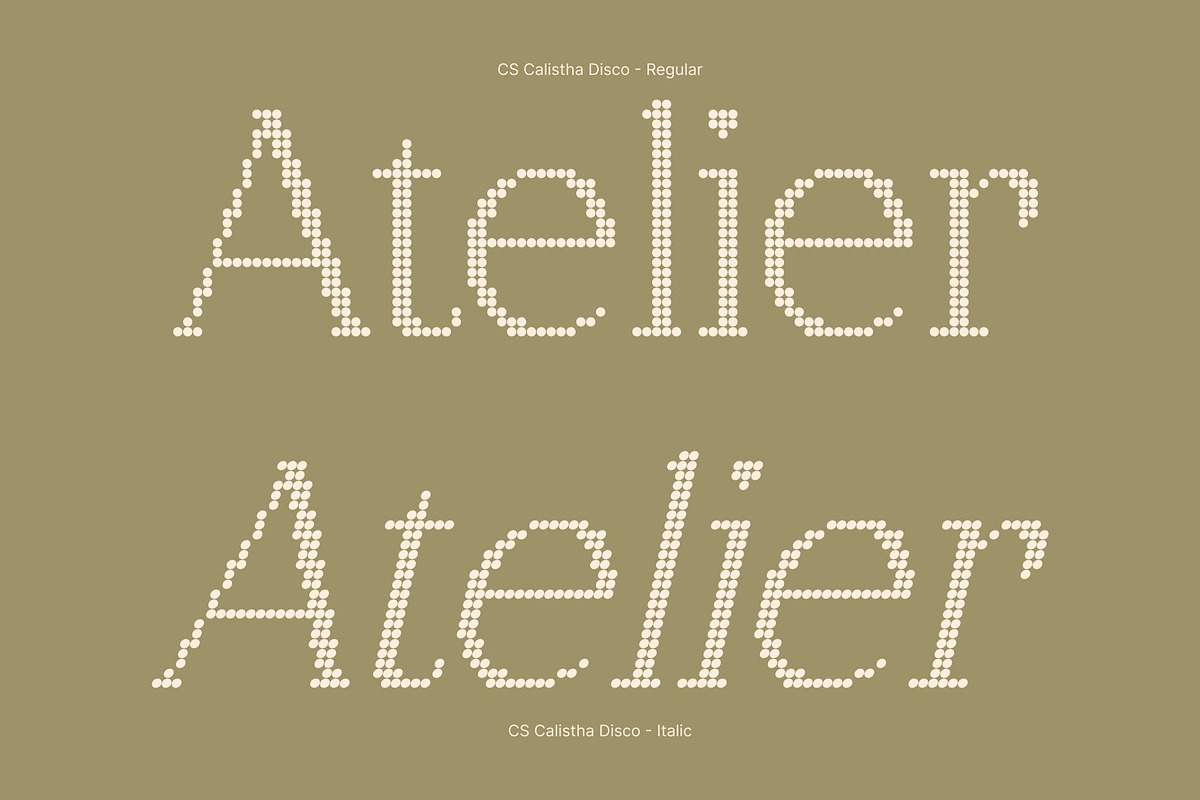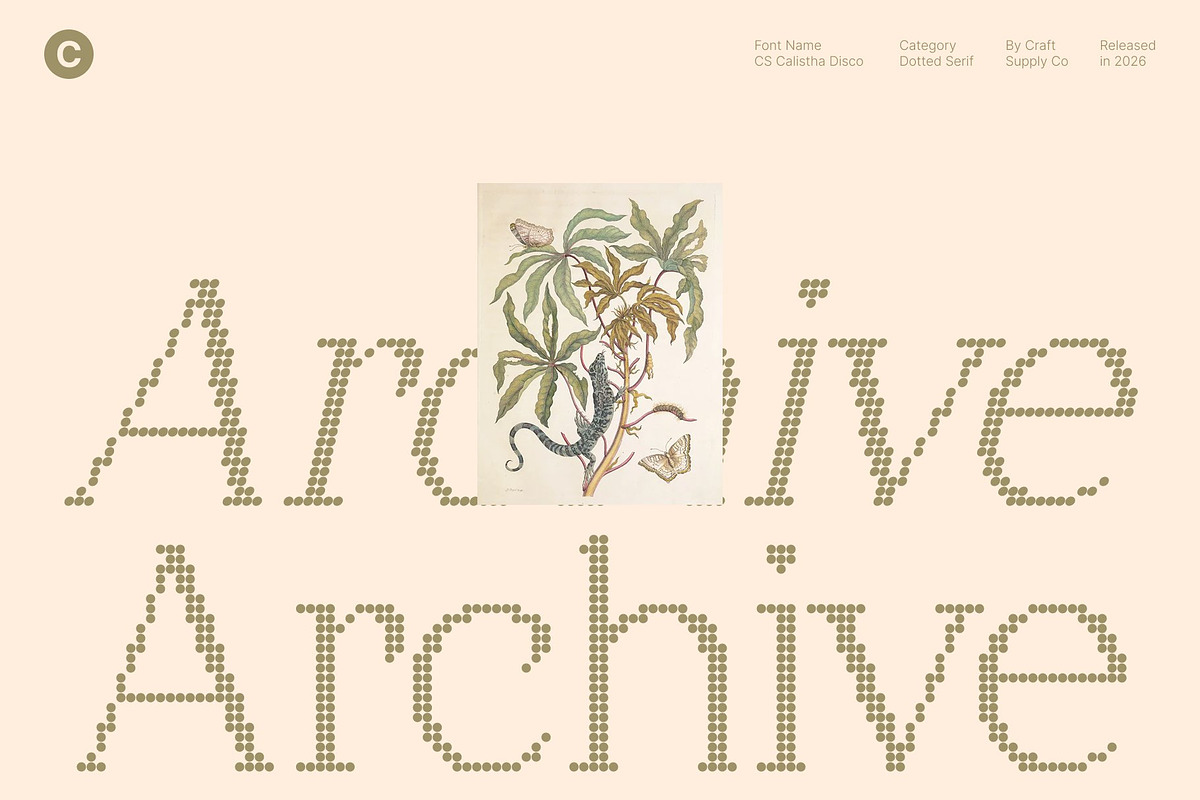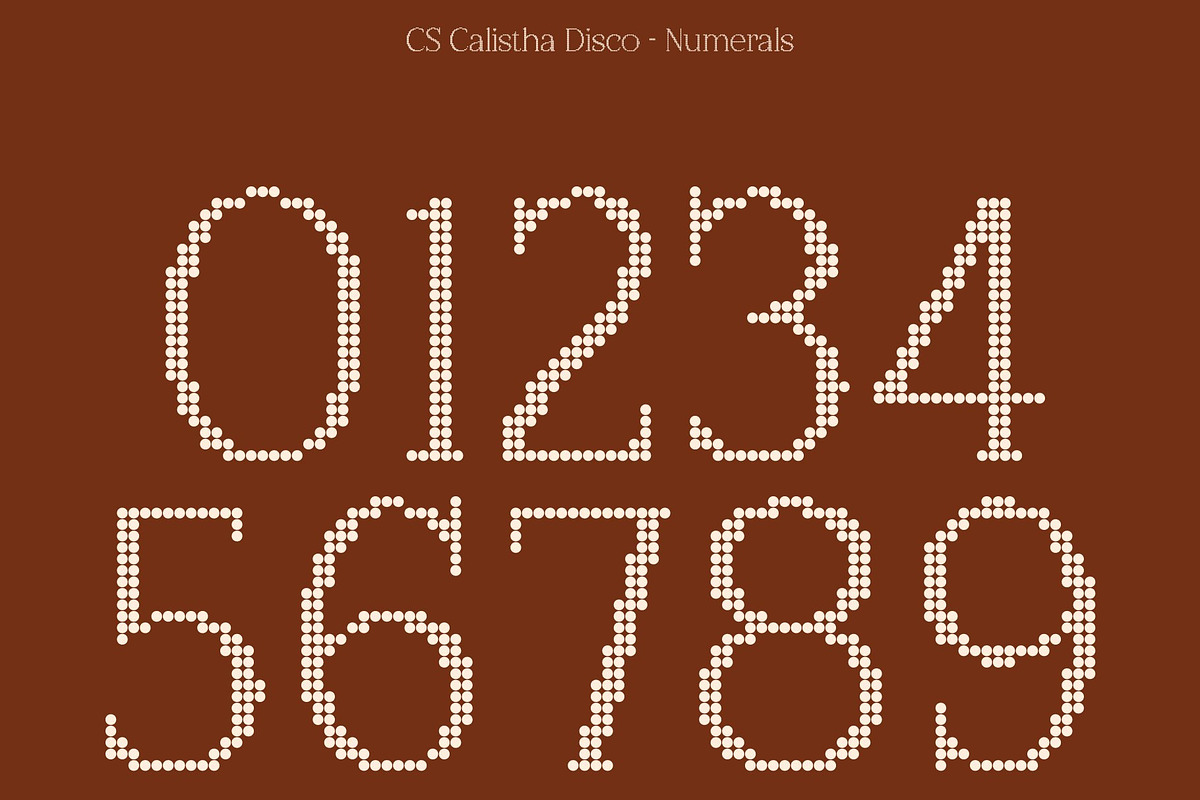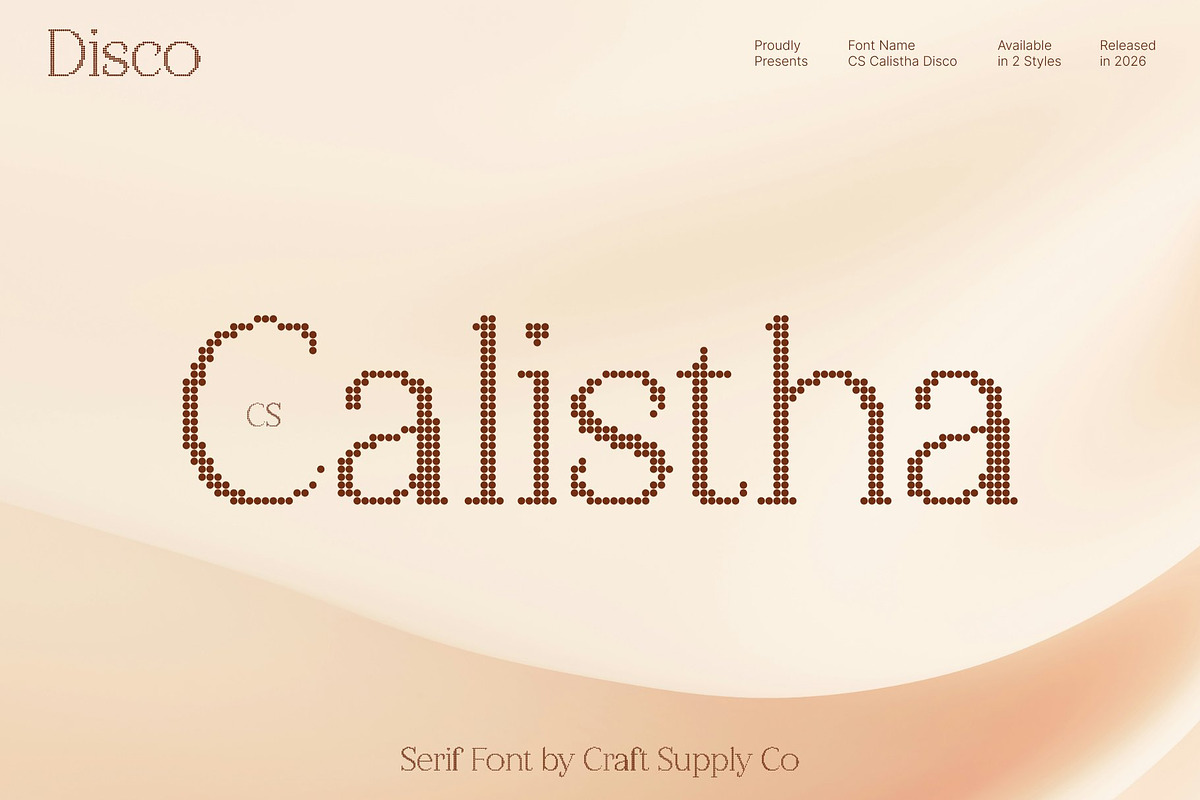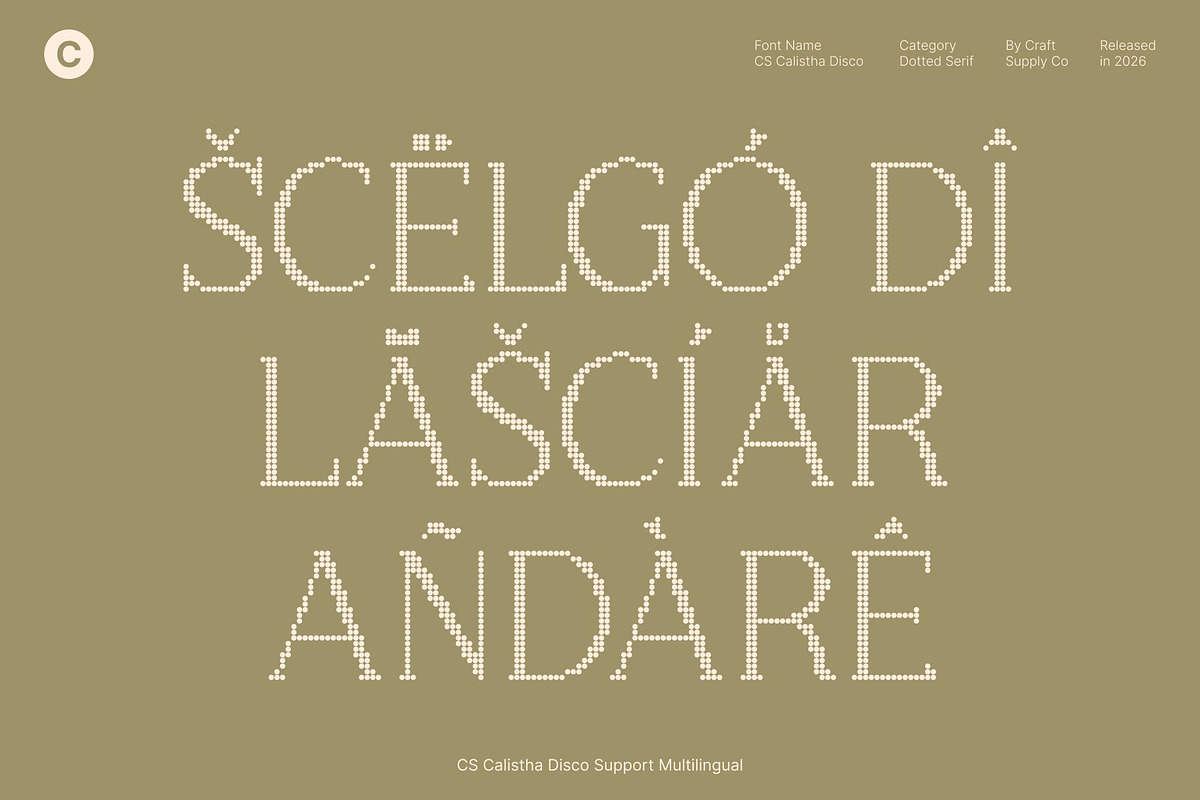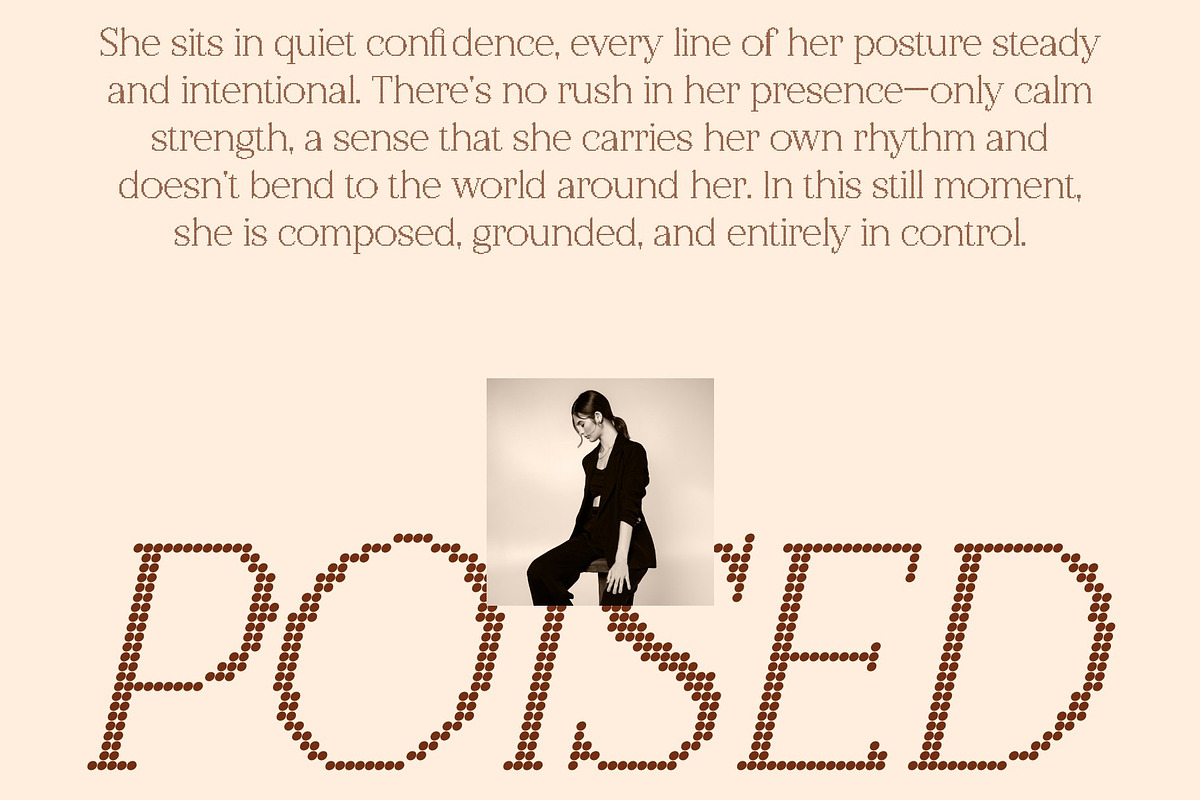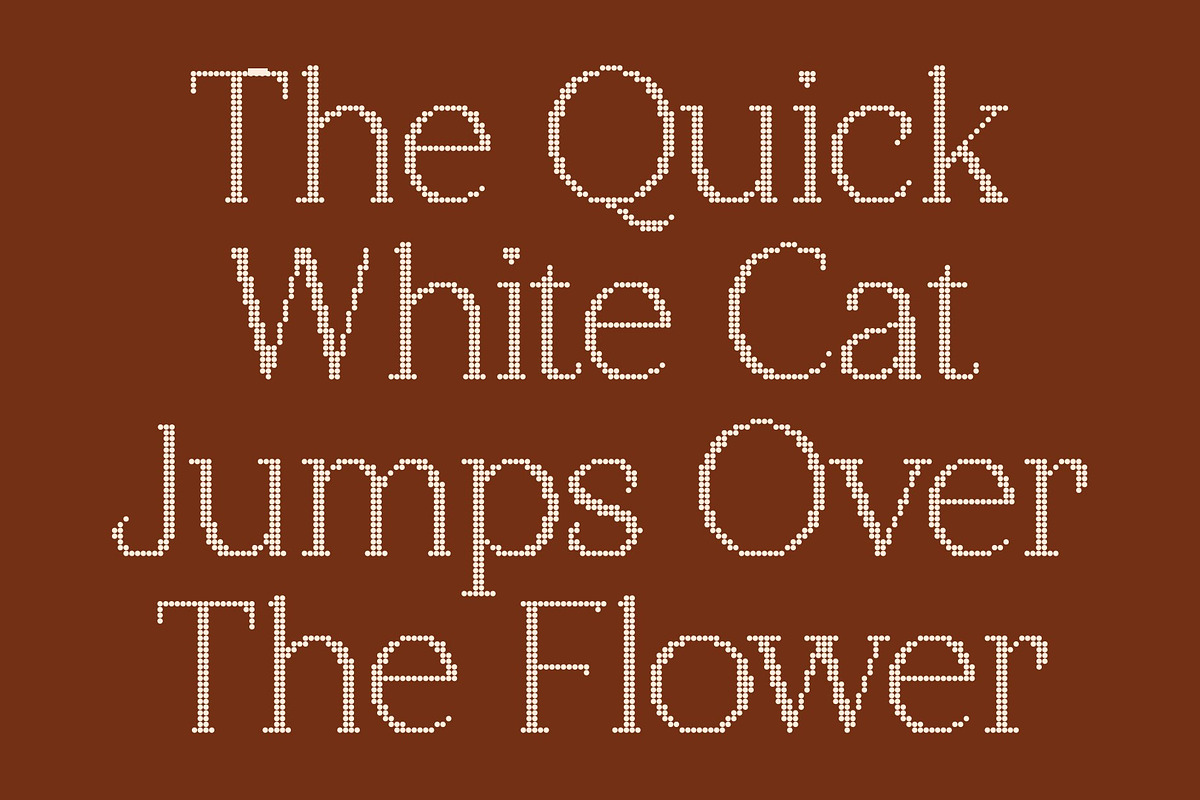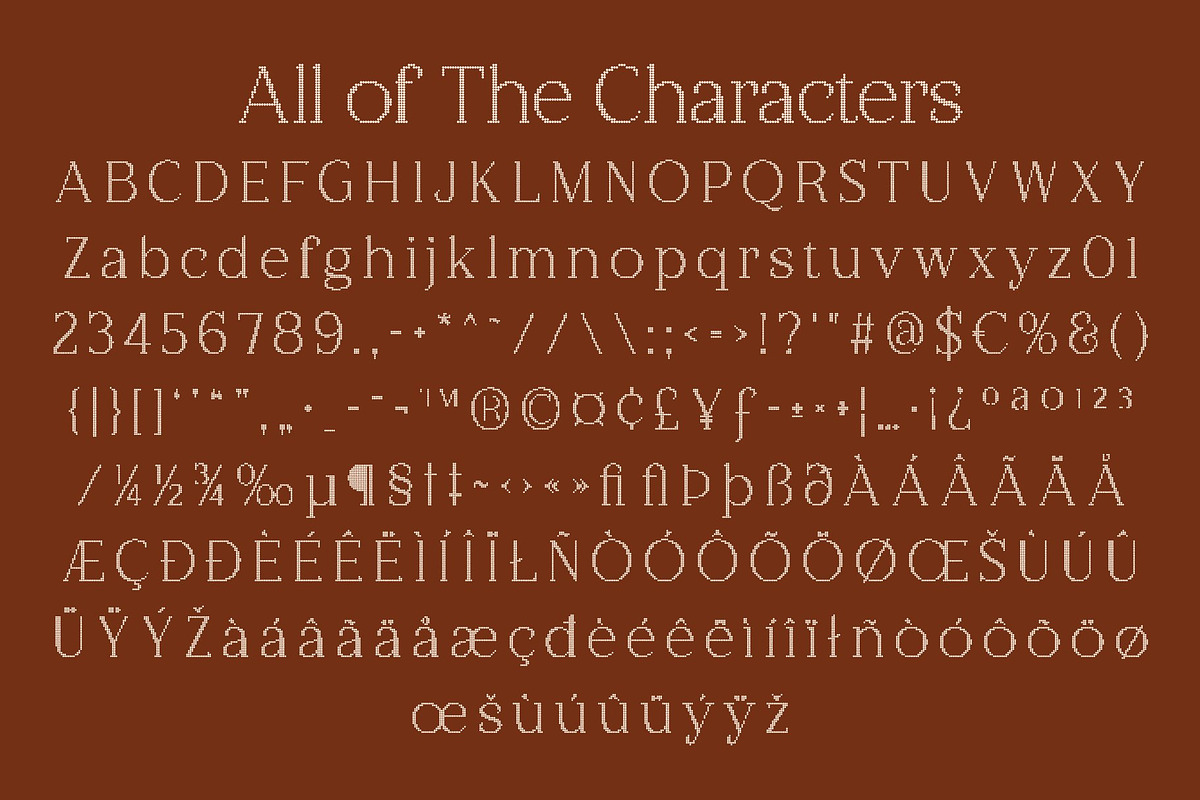
CS Calistha Disco
CS Calistha Disco – Elegant Serif with Radiant Disco Glamour
Graceful Elegance with Disco Spark This transforms its refined serif beauty into a luminous dotted display that glows with celebratory charm. The elegant curves and flowing letterforms are now traced with delicate circular dots, creating the effect of graceful typography illuminated by shimmering dance-floor lights. This fusion of sophistication and sparkle gives the font a luxurious yet joyful personality.
Refined Curves with Luminous Rhythm The smooth transitions and balanced proportions remain intact, preserving the timeless elegance of the serif design. The disco-inspired dotted construction adds texture and movement, making each curve appear radiant and lively. This subtle glow enhances the natural rhythm of the typeface while maintaining its refined character.
Luxury Aesthetic with Festive Energy This font blends classic sophistication with playful glamour. Its polished shapes communicate elegance and professionalism, while the sparkling dot style introduces a cheerful, celebratory touch perfect for designs that want to feel both upscale and vibrant.
Perfect for Elegant and Festive Projects Ideal for luxury branding, editorial headlines, wedding invitations, event promotions, and stylish packaging, this font elevates every composition with glowing sophistication. It works beautifully in layouts that combine elegance with expressive visual flair.